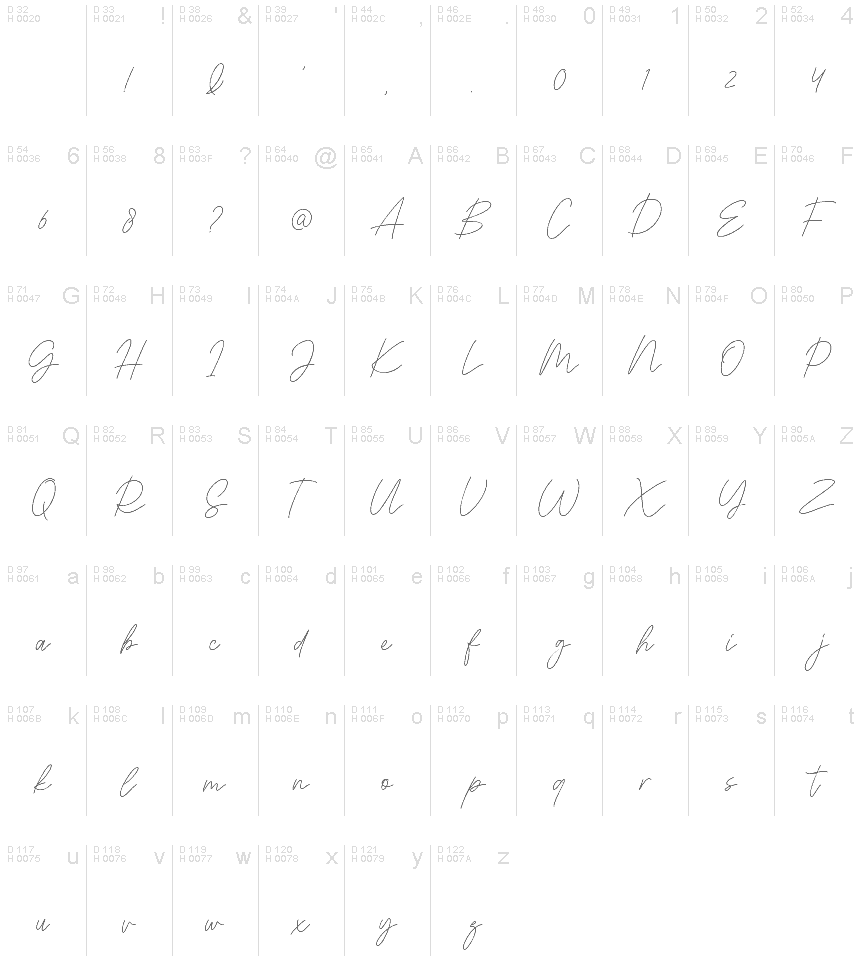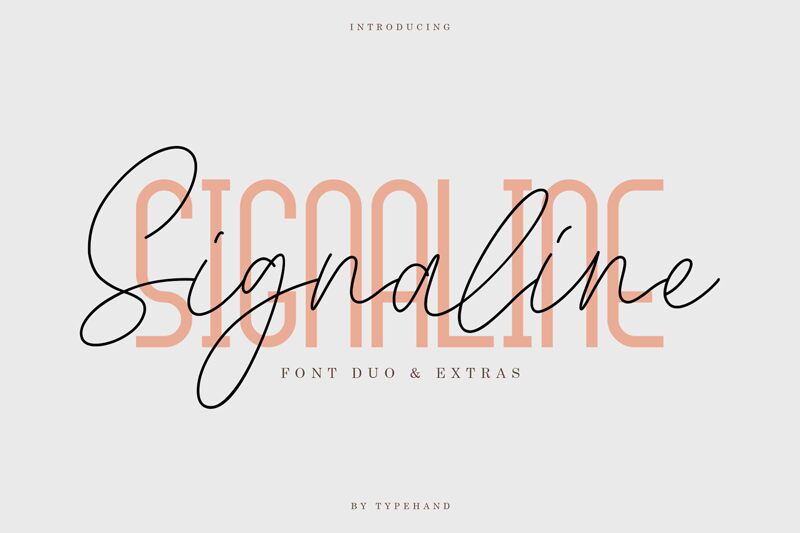
Signaline Script
Signaline Script font is a light handcrafted creation by Typehand Studio. Its fluid lines and graceful movement combine modern script elements with a sophisticated, elegant design. Expressive and stylish, this free handwritten font balances whispering thin strokes with brighter emphatic curves for an unrivaled airy and chic vibe.
Websites, logos, branding projects, pull quotes, headings, packaging designs or even labels are all great places where you can make use of Signaline Script font. It will further elevate invitations to events like weddings or business cards to higher levels than you ever imagined.